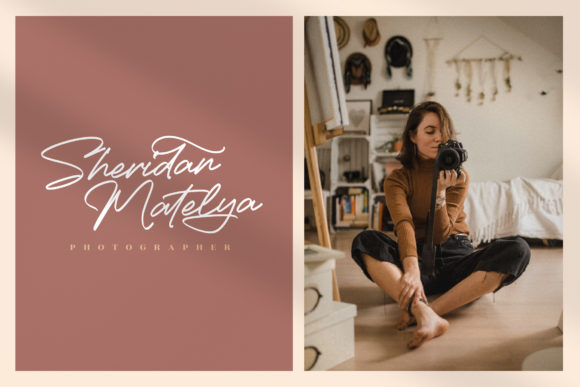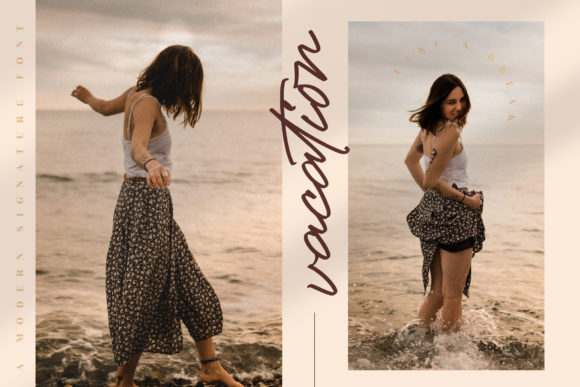
Patrick Tonight Font
db-ku.com - Script & Handwritten -- Patrick Tonight – Modern Signature Font suitable for any projects such as logos, branding projects, homeware designs, product packaging, mugs, quotes, posters, shopping bags, t-shirts, book covers, name cards, invitation cards, greeting cards, labels, photography, watermark, special events, and all your other lovely projects that need a beautiful script taste.